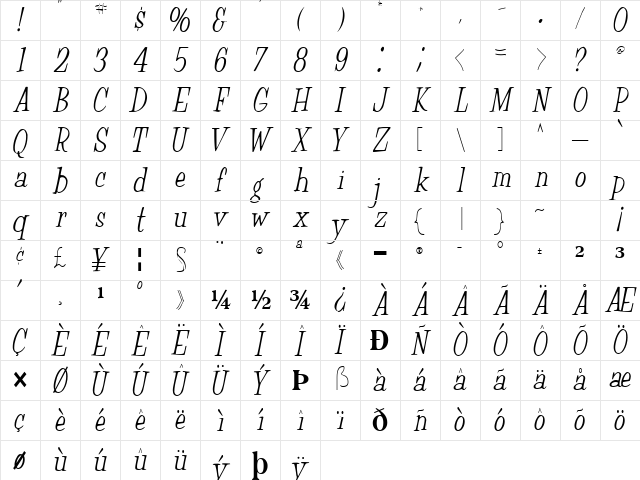
Muggy Regular
Muggy Family
Muggy Regular
Design Context for Muggy
Muggy is a composed and adaptable typeface that performs quietly and consistently across a wide range of design contexts.